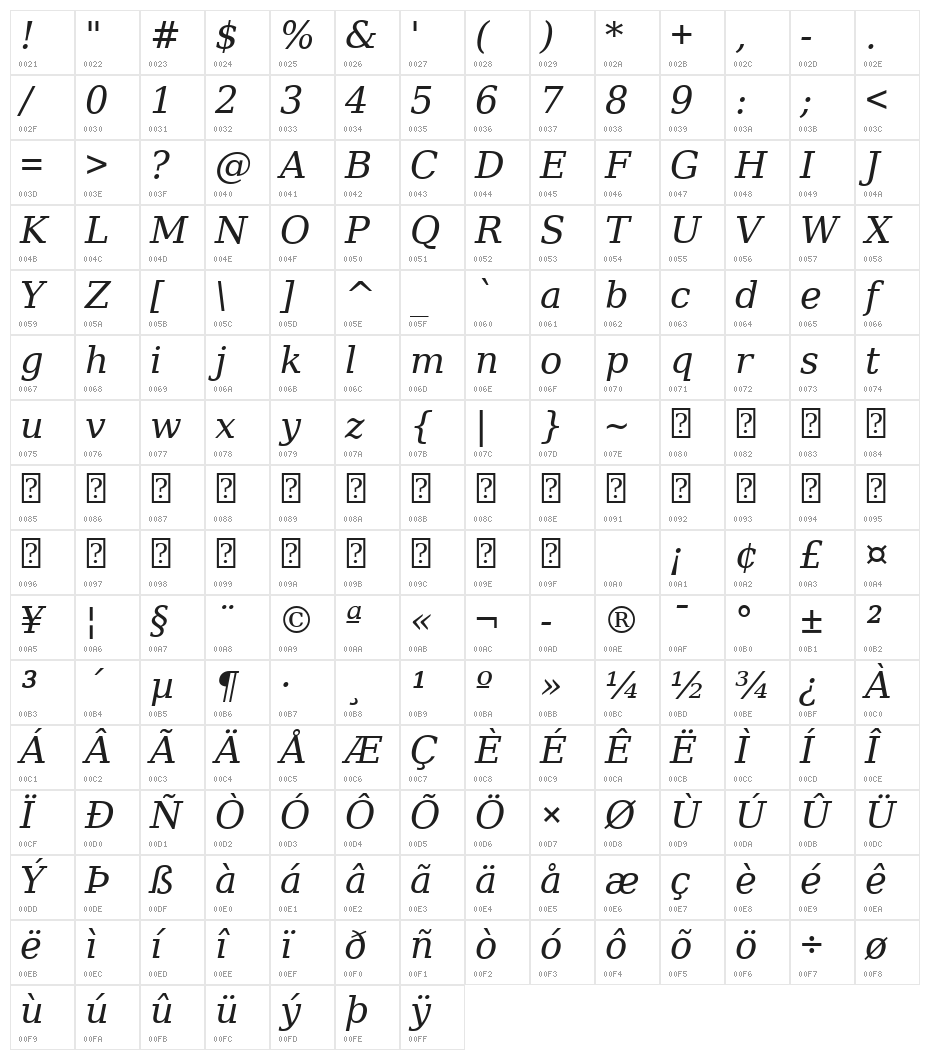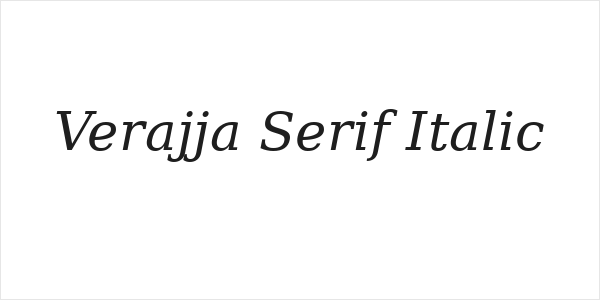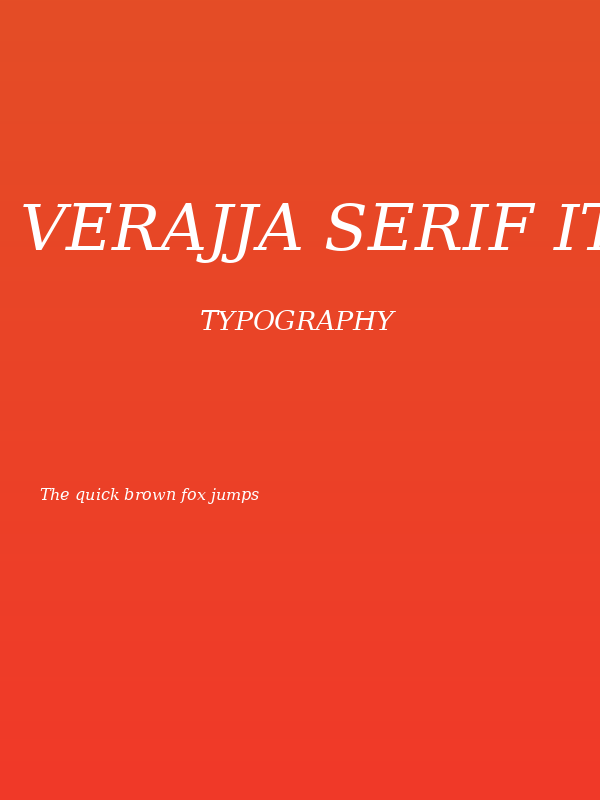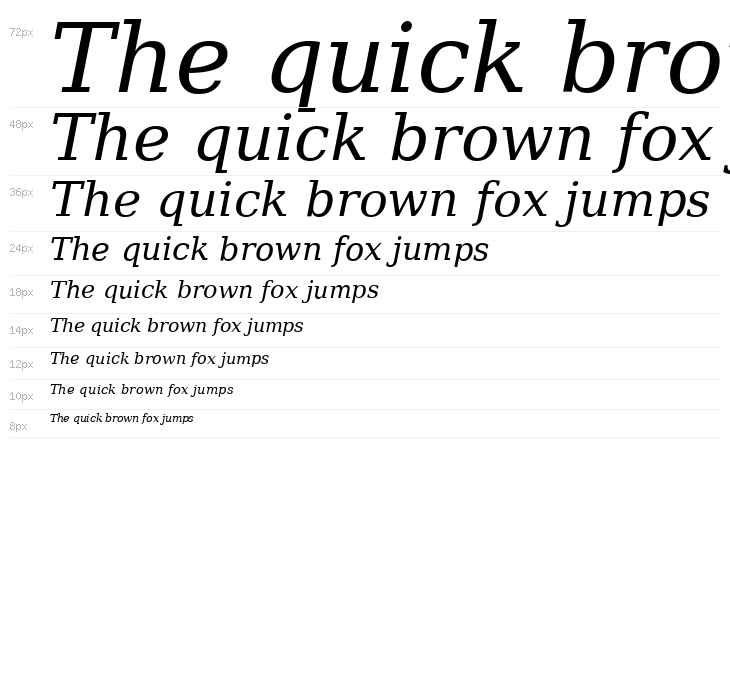
Verajja Serif Italic Font
Verajja Serif Italic Description
This elegant serif font features a classic italic style, characterized by its graceful curves and refined serifs. The uppercase letters are tall and slightly narrow, giving a sophisticated appearance, while the lowercase letters maintain a consistent flow with gentle slants. The numerals are well-proportioned, ensuring readability and balance. Special characters are designed with the same attention to detail, making them harmonious with the rest of the typeface. The overall design exudes a sense of tradition and formality, suitable for projects that require a touch of elegance and sophistication.
| Use Case | Headlines, Body text, Editorial design |
| Proposed Projects | Ideal for formal invitations, editorial design, book covers, and branding that requires a sophisticated touch. |